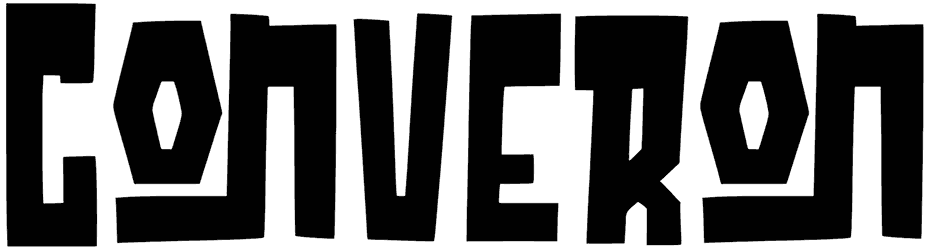
Converon Font
Do you want to represent your upcoming project in the best possible way, attract everyone’s attention, and make a good impression? So, search no longer because our new cartoon font is exactly what you need. Converon comes with a bold, geometric shape and gives off a strong feeling.
It doesn’t support lowercase letters, but other characters are supported. This font will be ideal for animation posters, website headers, comic books, stationery designs, and apparel printing.